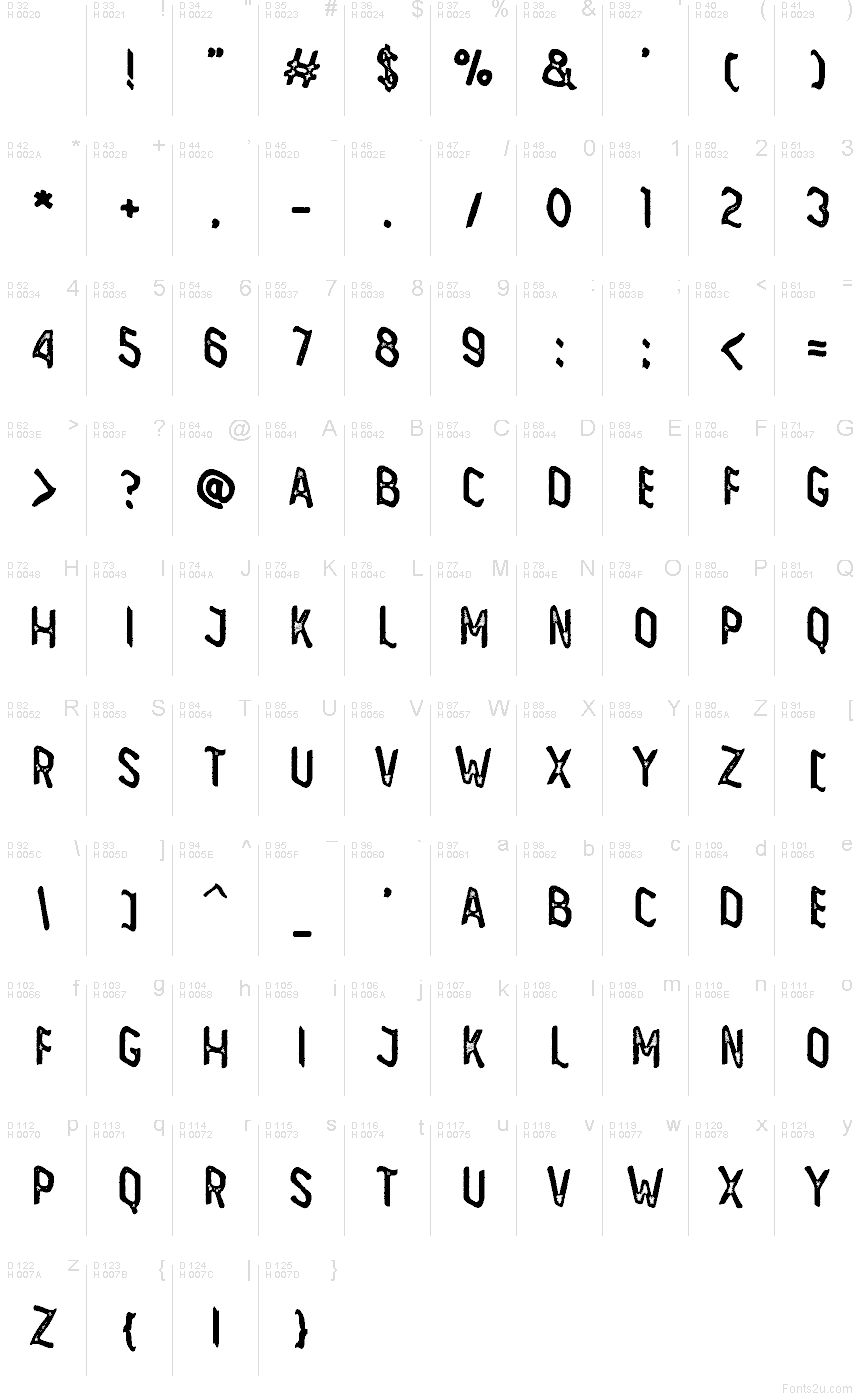
Dalgona Rolgado Rough by Vultype Co. is a free eroded display font with a scruffy, hand-cut look that leans a little gothic and a little homemade. The letters feel thick and uneven, with rubbed-out interiors and soft dents around the edges that make the whole font look worn in rather than polished.
It fits poster headlines, packaging, music artwork, spooky branding, and title cards where a free font needs grit without turning into a full horror cliché. Use it for short cover lines, logo-style words, or monogram-like initials when you want the rough texture to do most of the talking.